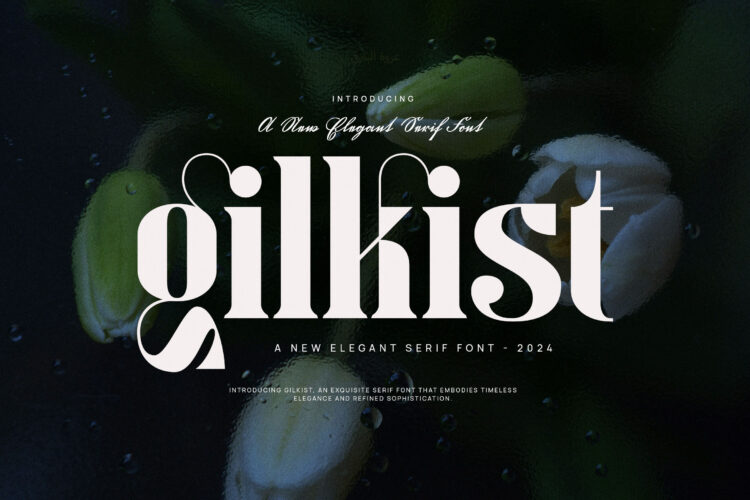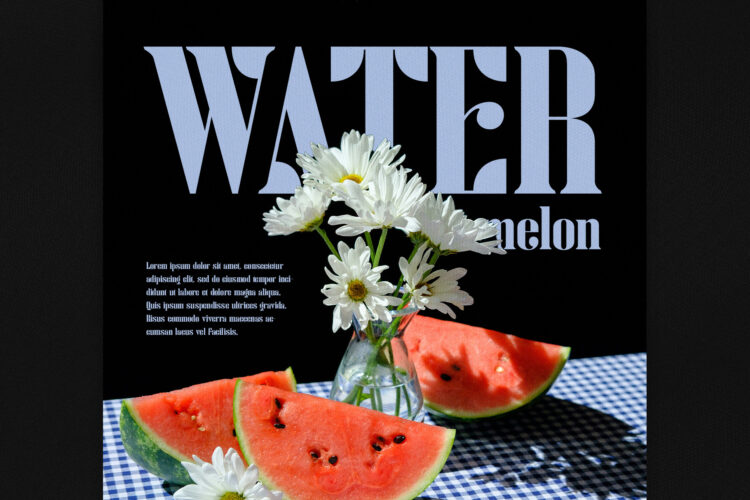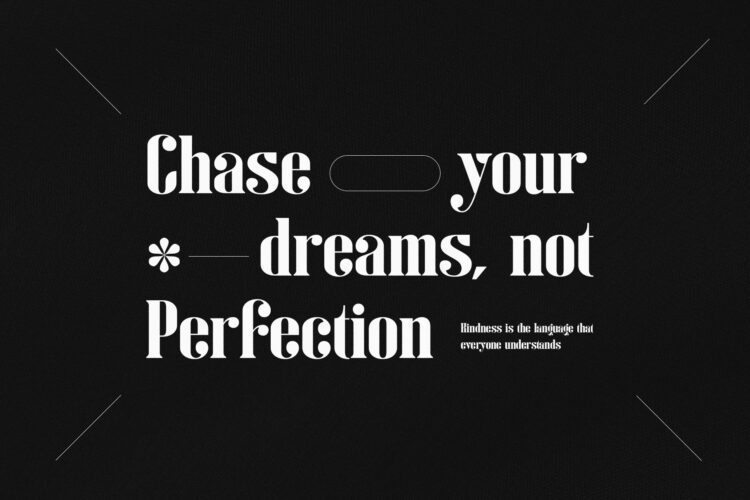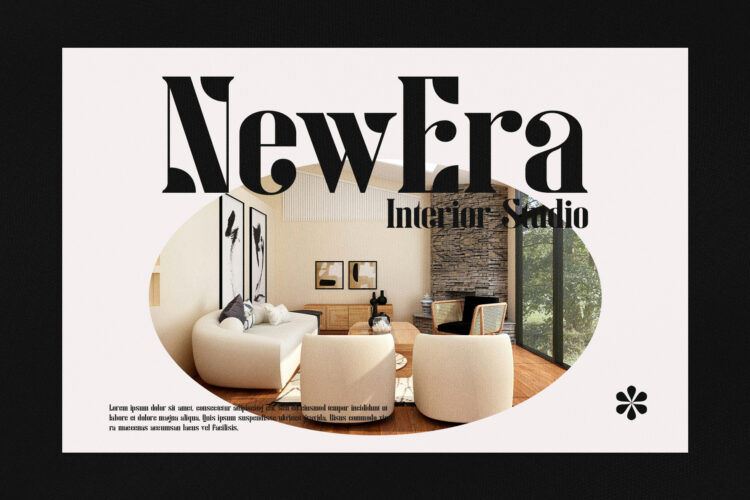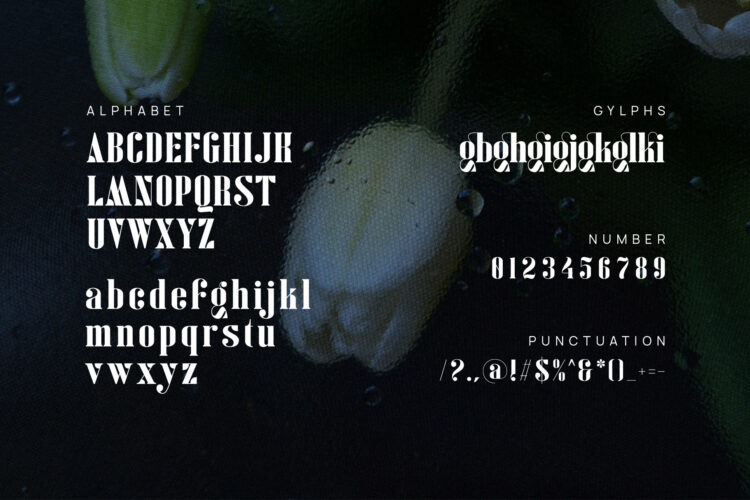
Introducing our new Gilkist, modern serif font with elegant style this is perfect for branding, logos, invitation, magazines, product packaging and more.
Gilkist – Elegant Serif Font